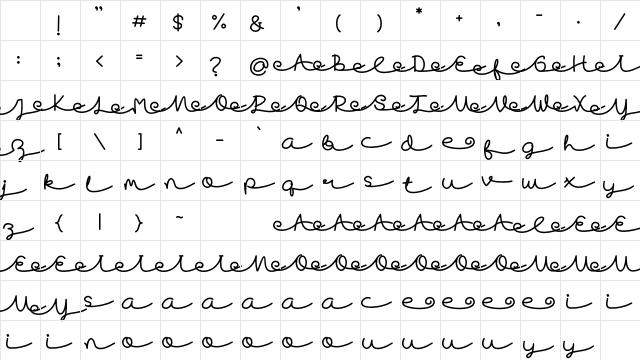
Complete Skywave Free Regular glyph index. Displaying only characters natively supported by Skywave Free Regular font.
Skywave Free is a composed and adaptable typeface that performs quietly and consistently across a wide range of design contexts.